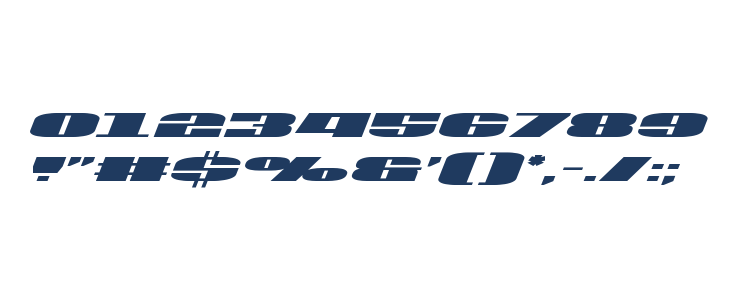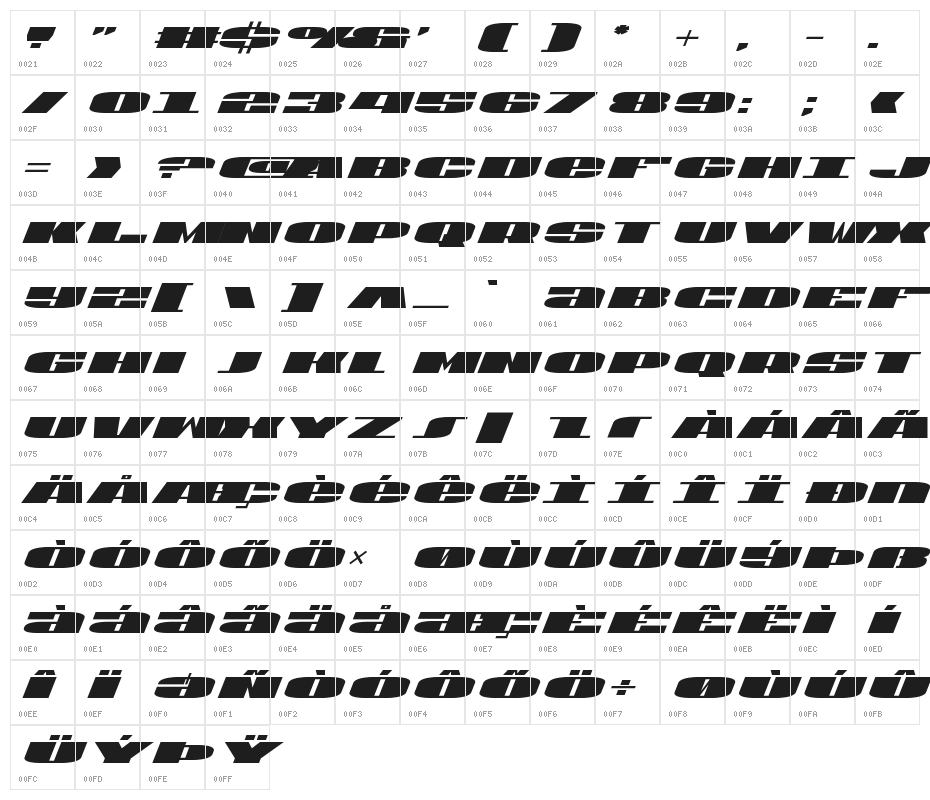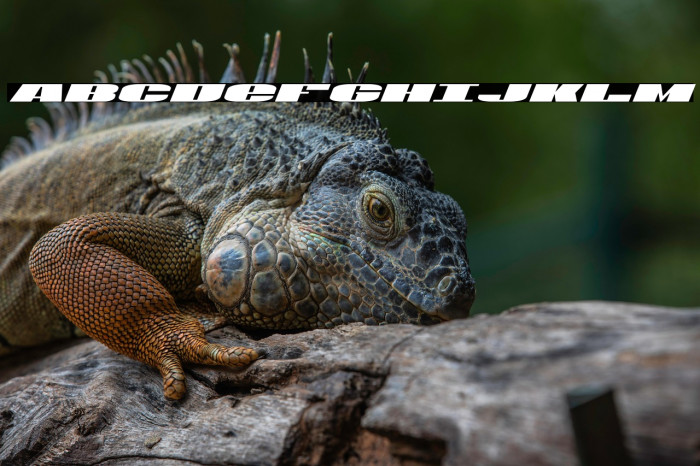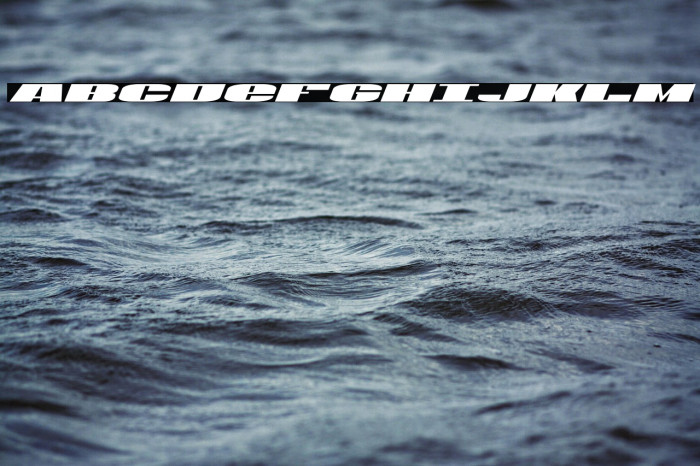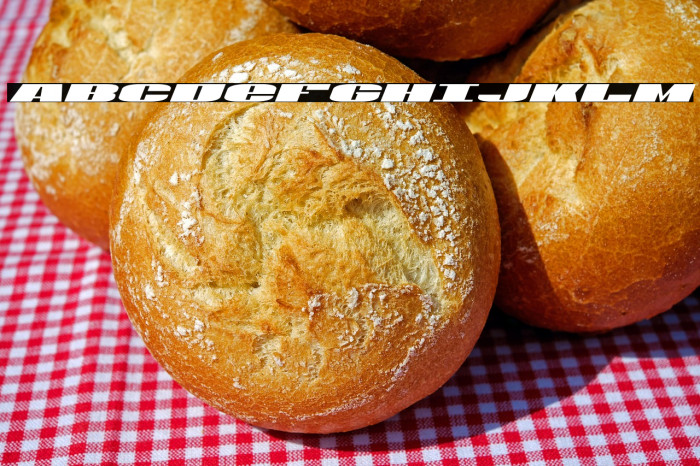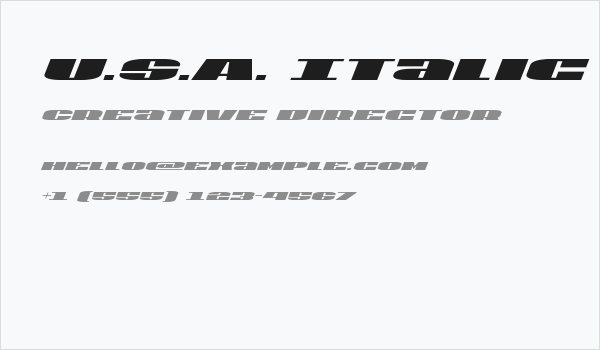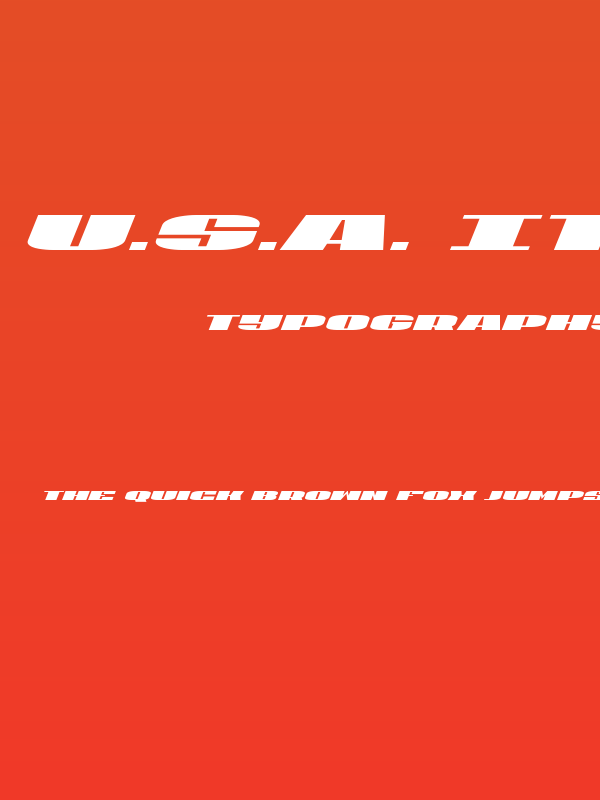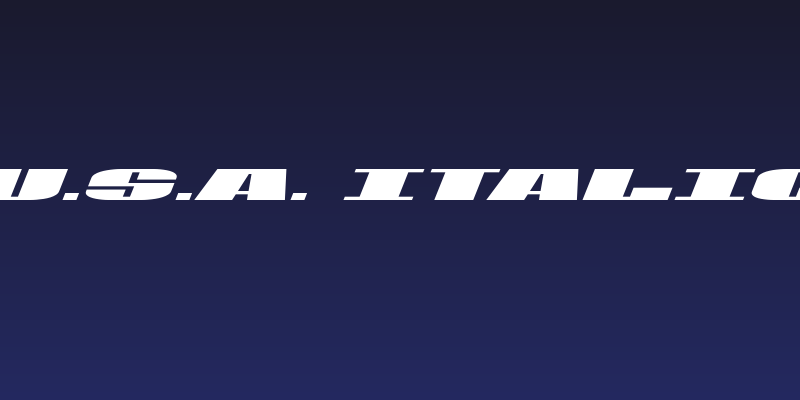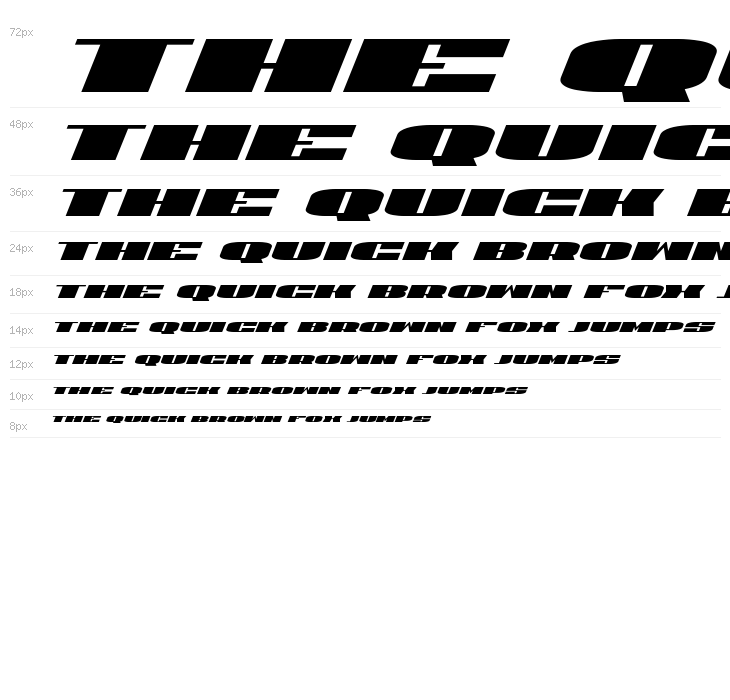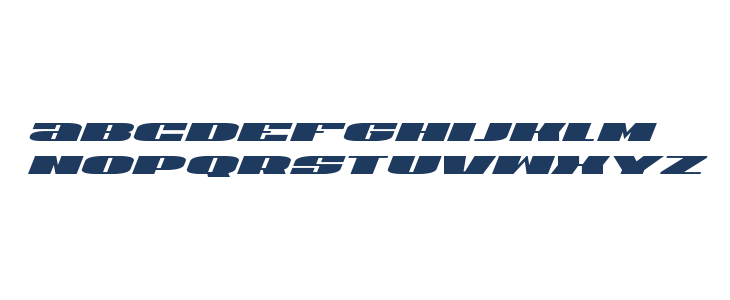
U.S.A. Italic Font
U.S.A. Italic Description
This font features a bold and dynamic style with a strong italic slant, giving it a sense of motion and energy. The characters are wide and have a distinct, blocky appearance, making them highly visible and impactful. The strokes are thick and consistent, providing a uniform look across all characters. The uppercase and lowercase letters maintain a cohesive design, while the numbers and special characters complement the overall aesthetic. This font is ideal for projects that require a bold statement and a modern, edgy feel.
| Proposed Projects | Ideal for sports branding, action movie posters, and dynamic advertising campaigns. |